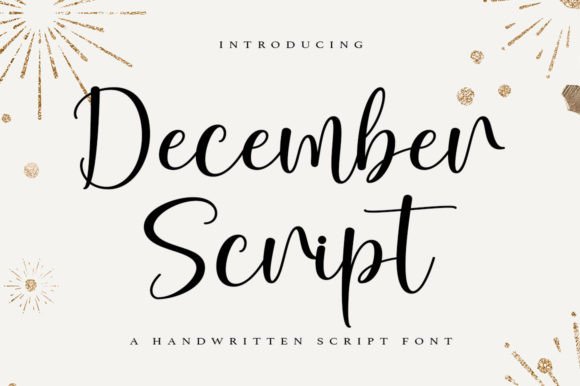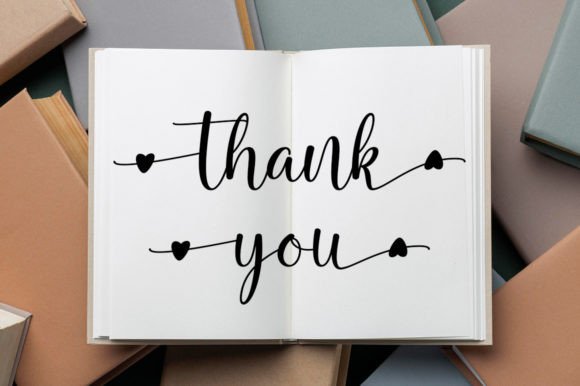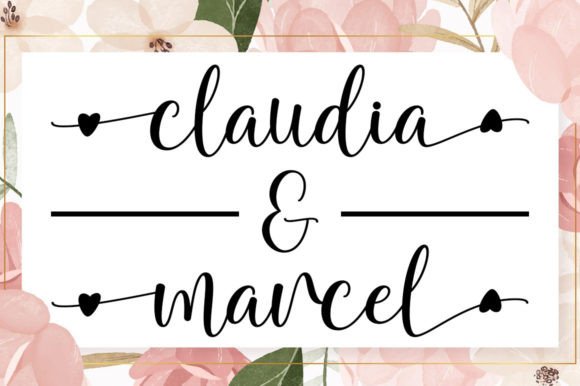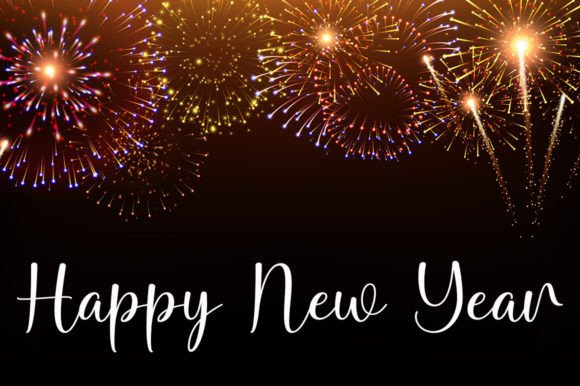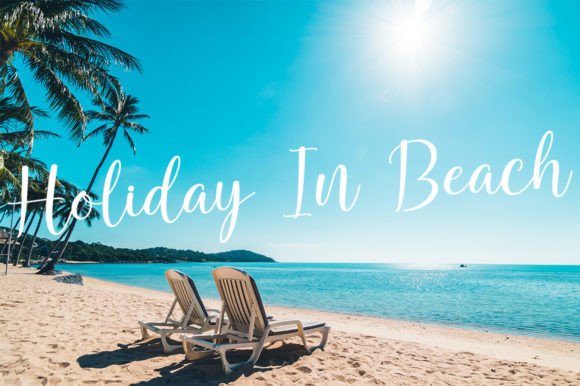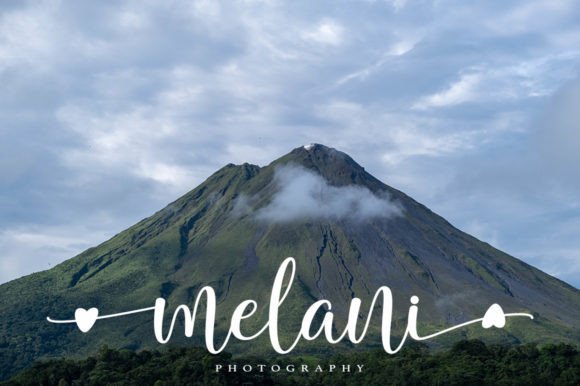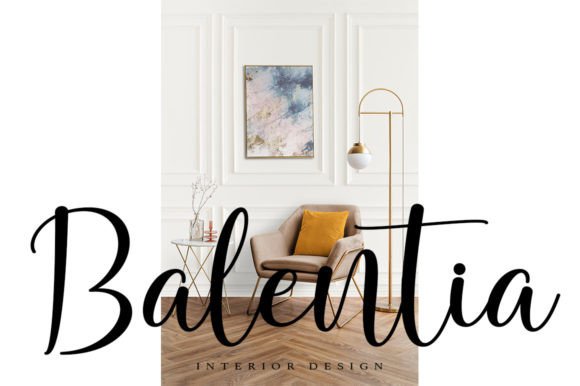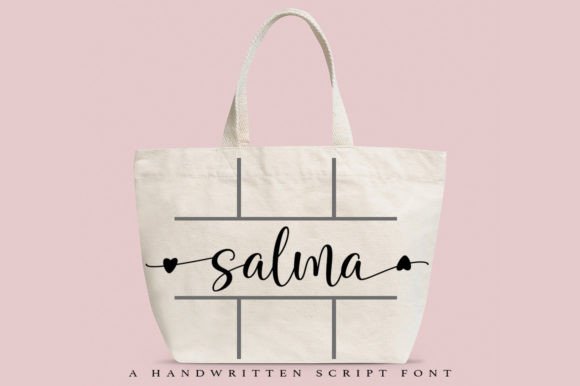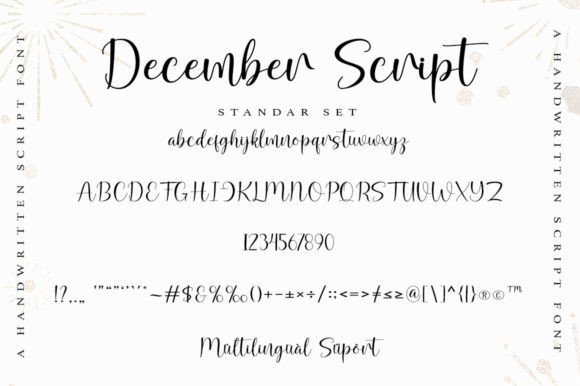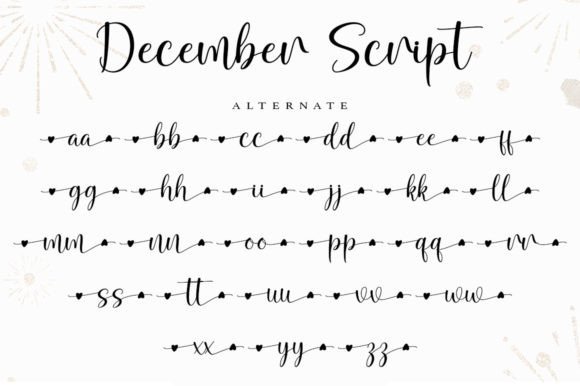
December Script Font
About December Script Font:
December Script Font is a sweet and delicate handwritten typeface designed to bring charm and elegance to your creative projects. With its dainty and joyful style, this font perfectly suits wedding invitations, greeting cards, and any design that calls for a romantic and personalized touch. Its flowing strokes and graceful curves make every letter look thoughtfully crafted, enhancing the overall appeal of your work.
This font is not only beautiful but also practical, as it comes PUA encoded. This means you can easily access all the glyphs and ligatures, allowing for effortless customization and creative expression. Whether you want to add swashes, alternate characters, or special ligatures, December Script Font provides the versatility you need to make your designs stand out.
Its delicate appearance works wonderfully in both digital and print formats, making it a versatile choice for branding, social media posts, invitations, and more. December ScriptFont is a timeless choice for designers who want to convey warmth while maintaining .